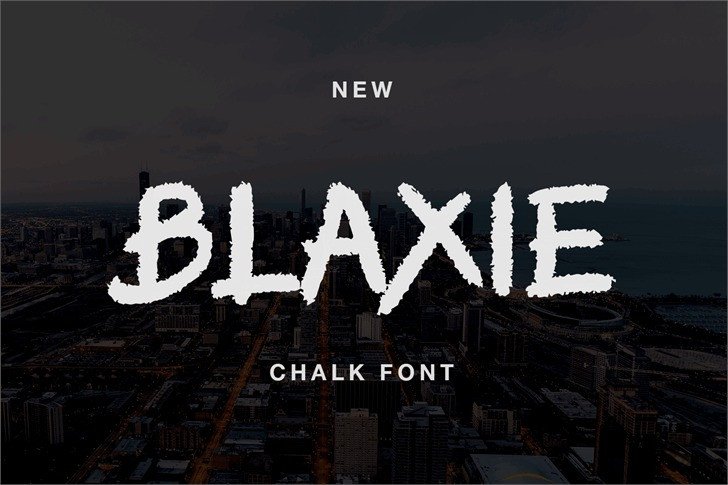
BLAXIE Font
BLAXIE Font is a font like that handwriting, made using a brush so that it looks natural and elegant.
BLAXIE are perfect for an authentic brush-lettered feel on your branding, prints, merchandise, websites, quotes and more.